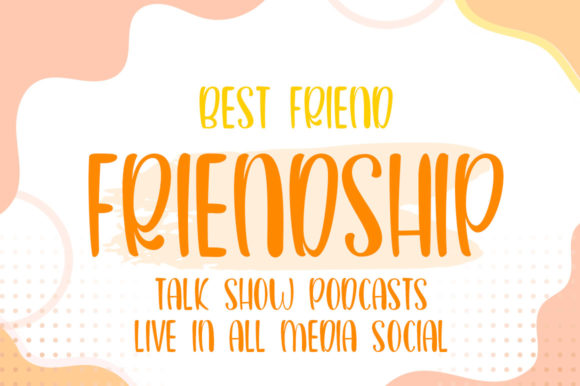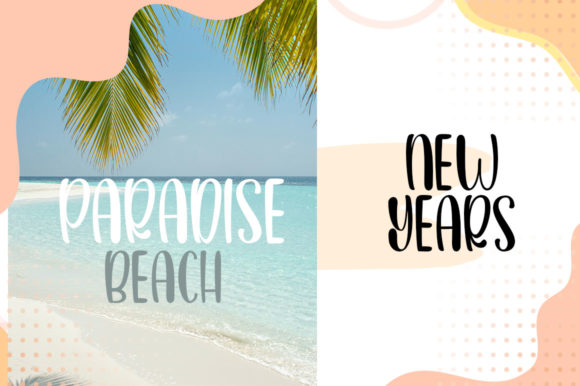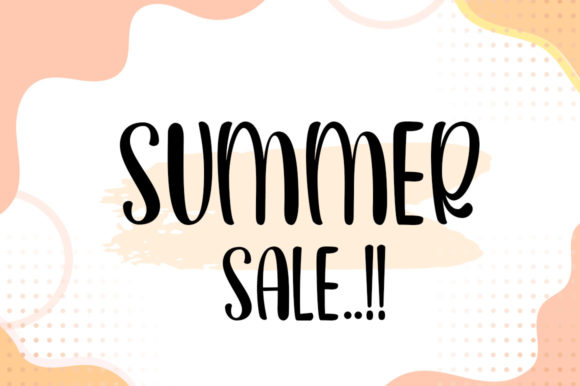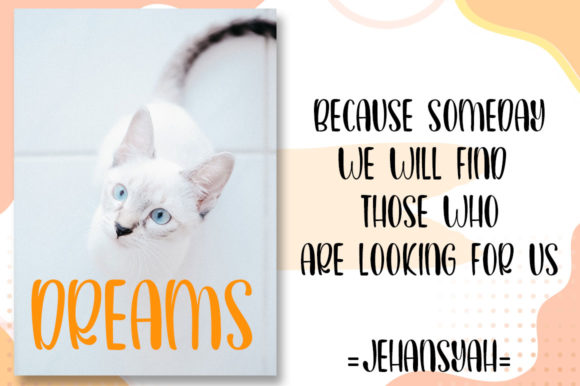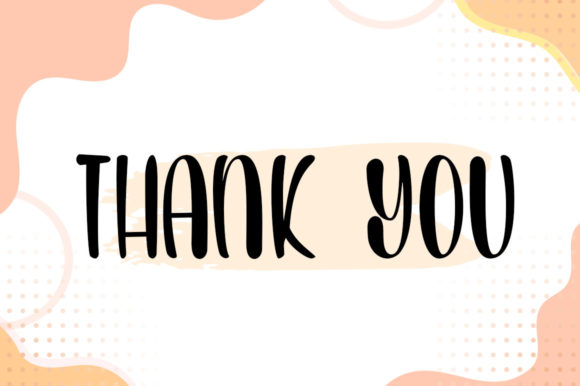
Courtesy Font: Adding a Touch of Whimsy to Your Designs
Courtesy Font is a delightful and quirky handwritten font that can instantly elevate your designs with a joyful touch. This sweet font is perfect for designers and crafters looking to add a personal and creative flair to their work. In this article, we’ll explore the features and benefits of Courtesy Font, and how it can bring your designs to life.
The Charm of Courtesy Font
Courtesy Font is a carefully crafted handwritten font that exudes a sense of playfulness and charm. Its unique and quirky characters are designed to add a touch of whimsy to your designs, making them stand out from the crowd. Whether you’re working on a creative project, a branding campaign, or a personal craft, Courtesy Font is the perfect choice to add a dash of personality and flair.
Key Features of Courtesy Font
- Handwritten style: Courtesy Font boasts a beautiful, handwritten style that is both elegant and playful.
- Quirky characters: The font features quirky and unique characters that add a touch of whimsy to your designs.
- Easy to read: Despite its playful nature, Courtesy Font is easy to read and understand, making it perfect for body text and headings.
- Versatile: Courtesy Font can be used for a wide range of design projects, from branding and advertising to crafting and DIY projects.
Benefits of Using Courtesy Font
So, why should you choose Courtesy Font for your designs? Here are just a few benefits of using this delightful font:
- Adds personality: Courtesy Font adds a personal touch to your designs, making them more relatable and engaging.
- Creates a unique look: The font’s quirky characters and handwritten style create a unique look that sets your designs apart from others.
- Evokes emotions: Courtesy Font’s playful and charming nature can evoke emotions and create a connection with your audience.
- Perfect for creative projects: This font is ideal for creative projects, such as crafting, DIY, and art, where a personal touch is desired.
Using Courtesy Font in Your Designs
So, how can you use Courtesy Font in your designs? Here are a few ideas to get you started:
- Branding and advertising: Use Courtesy Font to create eye-catching branding and advertising materials, such as logos, brochures, and flyers.
- Crafting and DIY: Add a personal touch to your crafting and DIY projects, such as handmade cards, gift tags, and scrapbooking.
- Social media graphics: Use Courtesy Font to create engaging social media graphics, such as quotes, posters, and infographics.
- Web design: Incorporate Courtesy Font into your web design projects, such as blog headers, website titles, and call-to-actions.
Tips and Tricks for Working with Courtesy Font
Here are a few tips and tricks to help you get the most out of Courtesy Font:
- Experiment with colors: Play around with different colors to find the perfect combination that complements your design.
- Mix and match: Combine Courtesy Font with other fonts to create a unique and interesting look.
- Pay attention to spacing: Make sure to adjust the spacing between characters to ensure your text is easy to read.
- Have fun: Most importantly, have fun and be creative with Courtesy Font!
In conclusion, Courtesy Font is a sweet and quirky handwritten font that can add a joyful touch to your designs. With its unique characters, easy-to-read style, and versatile nature, this font is perfect for designers and crafters looking to add a personal and creative flair to their work. Whether you’re working on a branding campaign, a crafting project, or a web design project, Courtesy Font is sure to bring your designs to life.